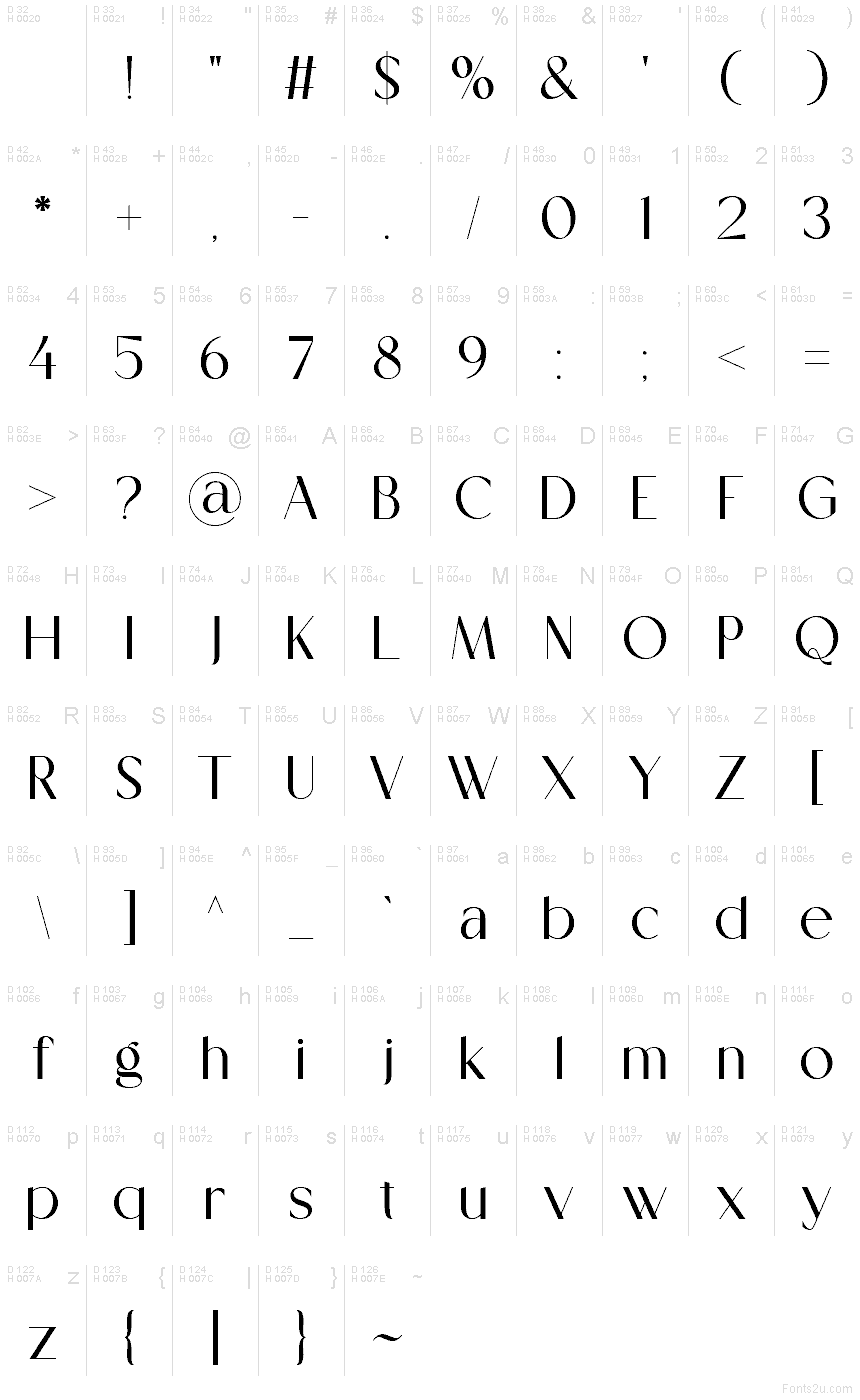
Vionie
Vionie typeface by Ermedia Studio is a free serif font. Built around striking contrast, it pairs razor-thin hairlines with glossy, sculpted curves that feel both modern and couture. The rhythm is crisp and airy, so letters breathe even at large sizes, while those elliptical counters give headlines a lush, inky presence.
This free font shines on fashion branding, beauty packaging, editorial headlines, perfume logos, magazine mastheads, wedding stationery, and social media covers. Using Vionie instantly signals polish and quiet drama—keep it big, add a touch of tracking, and let it lead. Simple pairing tip: anchor it with a restrained geometric sans for body copy.